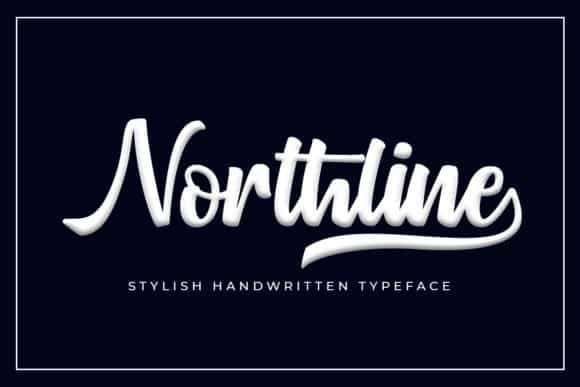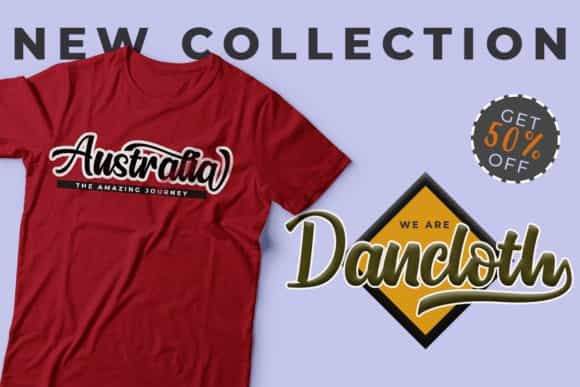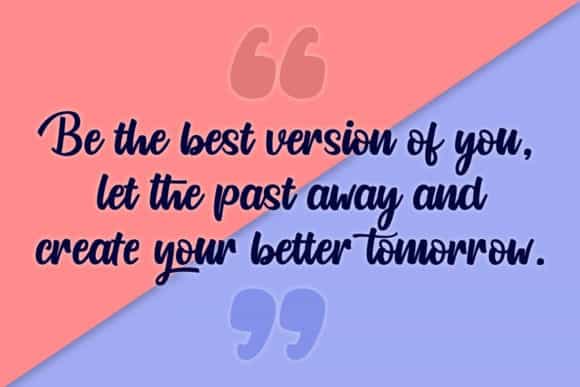
Discover Northline Script Font, part of the Brush Calligraphy Handwritten collection—a versatile and unique font perfect for adding a personal touch to your projects. Download it for free and enjoy crafting designs with style, from invitations to social media posts. This font is available exclusively for personal use, giving you the freedom to create without limits. Unlock your creativity with Northline Script Font today!
Northline Font has a whole set of big international letters, numbers, punctuation marks and binders. All lowercase letters are the start and finish of the attack. This font is suitable for wedding postcards. Or you can also make logos, blogs, stationery, marketing materials, magazines, invitations and models that are perfect and unique.